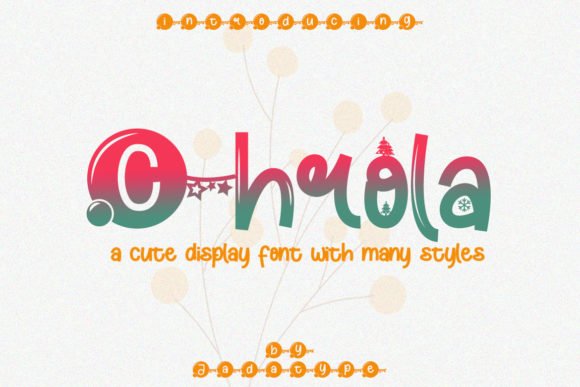
Adding a Dash of Whimsy to Your Designs
As a designer, have you ever been brainstorming ideas for a project and suddenly, a spark of creativity strikes? You envision a bright, colorful party invitation or a playful social media post that captures the essence of youth and joy. For those moments, you’ll need a font that can bring your vision to life – and that’s where the Chrola Font comes in.
This charming display font is designed to add a touch of quirkiness to your designs, making it perfect for party invitations, gatherings, and other creative projects that call for a playful vibe. With its cute and fun aesthetic, the Chrola Font is a valuable asset for designers looking to inject some personality into their work.
Key Features of Chrola Font
- Font Family: Chrola Font is available in 2 font families, Regular and Bold.
- Unique Characteristics: Chrola Font features a unique blend of modern and vintage styles, with intricate details and ornate flourishes.
Chrola Font Review
Overall, I think the Chrola Font has some great qualities that make it a solid choice for designers. ✨ The bold and playful feel is infectious, and it’s perfect for headings and titles where you want to grab attention.
- Chrola’s playful nature makes it a great choice for creative projects like branding, advertising, or even children’s books.
- The font’s high contrast between light and dark weights makes it easy to read, even at small sizes.
- It’s a great choice for designers who want a fun, yet still professional-looking font.
However, there are some limitations to keep in mind ⚠️. The font’s playfulness can sometimes come across as too casual, which may not be suitable for more formal projects.
- The font’s irregular letterforms can be distracting for readers who prefer more traditional typography.
- Chrola may not be the best choice for long blocks of text, as the irregularities can become overwhelming.
Overall, I’d say Chrola Font is a great addition to any designer’s toolkit. While it may not be perfect for every project, it’s a versatile and eye-catching font that can add a lot of personality to your designs.
Tips for Getting the Most Out of Chrola Font
Use the Chrola Font for titles, headings, and emphasis in your designs. Experiment with different font sizes and styles to create visual hierarchy.
Chrola Font is suitable for:
- Typography-based designs
- Branding and logo designs
- Infographics and data visualizations
Alternatives to Chrola Font
Carolyna Pro is a elegant, high-end serif font that’s perfect for luxury branding, fashion, and design. It’s great for headings, titles, and other prominent text.